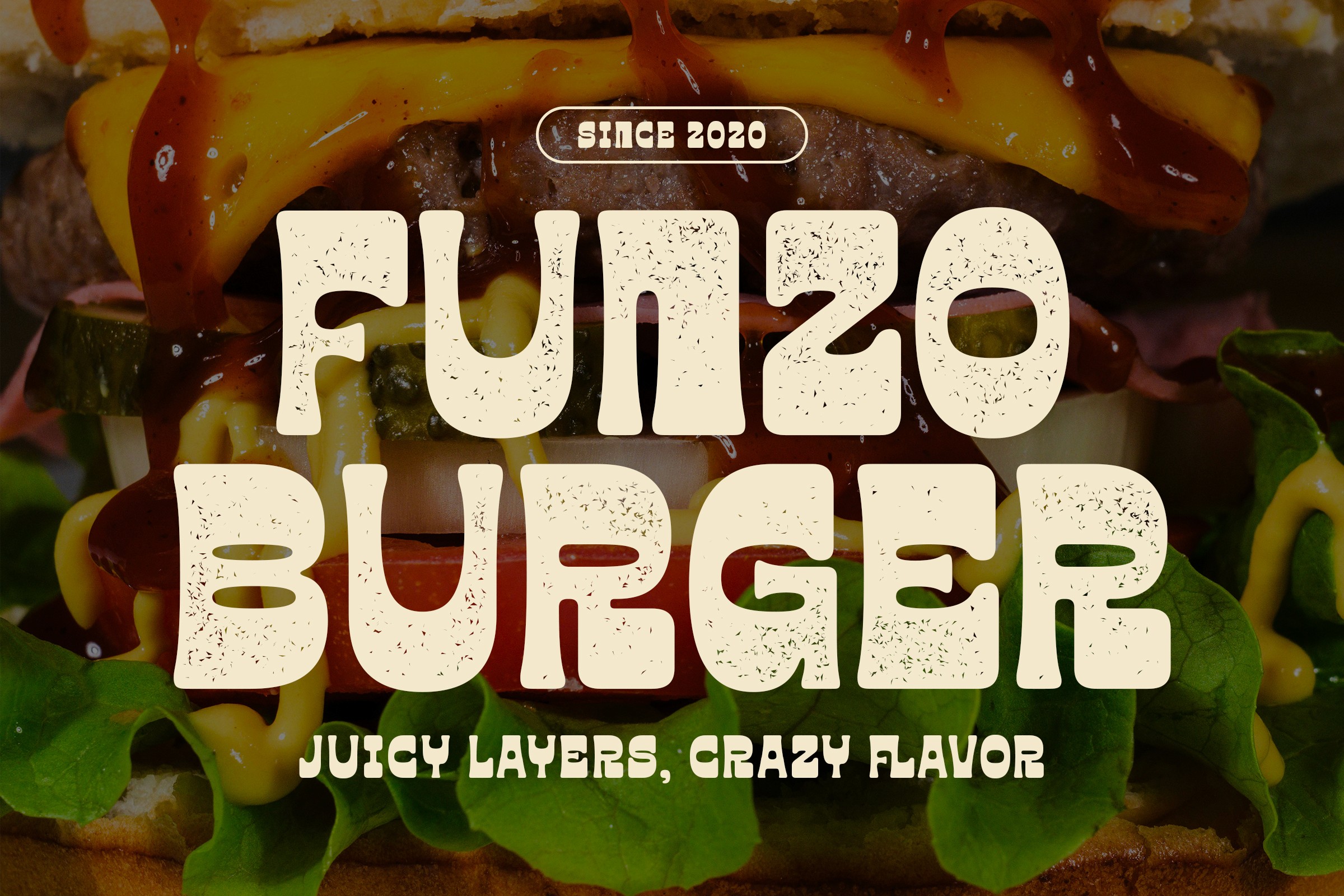
Funzo Font
Funky Display
2 Styles
Funzo is a bold and chunky display font designed to bring playful energy and groovy retro vibes into your designs. With its soft curves, thick shapes, and expressive personality, Funzo delivers a strong visual impact while keeping a friendly and approachable feel.
Bold & chunky display sans serif
Fun, funky, and groovy style
2 styles: Clean & Stamp
Uppercase & lowercase letters
Numbers & punctuation
Multilingual support
Food & beverage branding (burger, pizza, coffee, snacks)
Posters & promotional graphics
Kids & playful designs
Packaging design
Streetwear & merchandise
Social media content
Logo & branding projects
Styles
Regular
Stamp